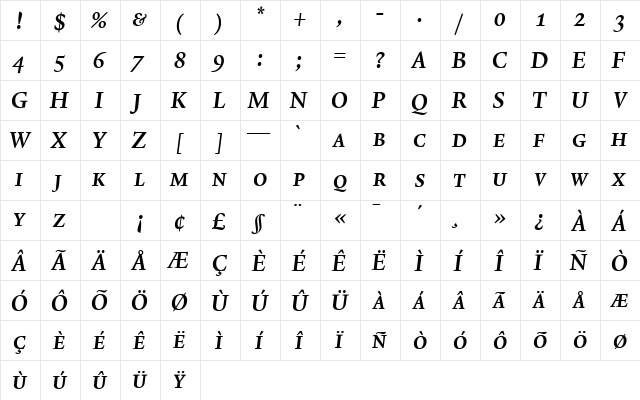
Lexicon No1 Italic C Exp
Design Context for Lexicon No1 Typeface
Lexicon No1 takes a measured approach to typography — its balanced proportions and neutral character make it a reliable workhorse for both digital and print work. Its italic angle brings a sense of urgency and motion to the letterforms.
Pro Tip: Use Lexicon No1 for emphasis, pull quotes, and subheadings where its slanted energy can add rhythm to the layout.